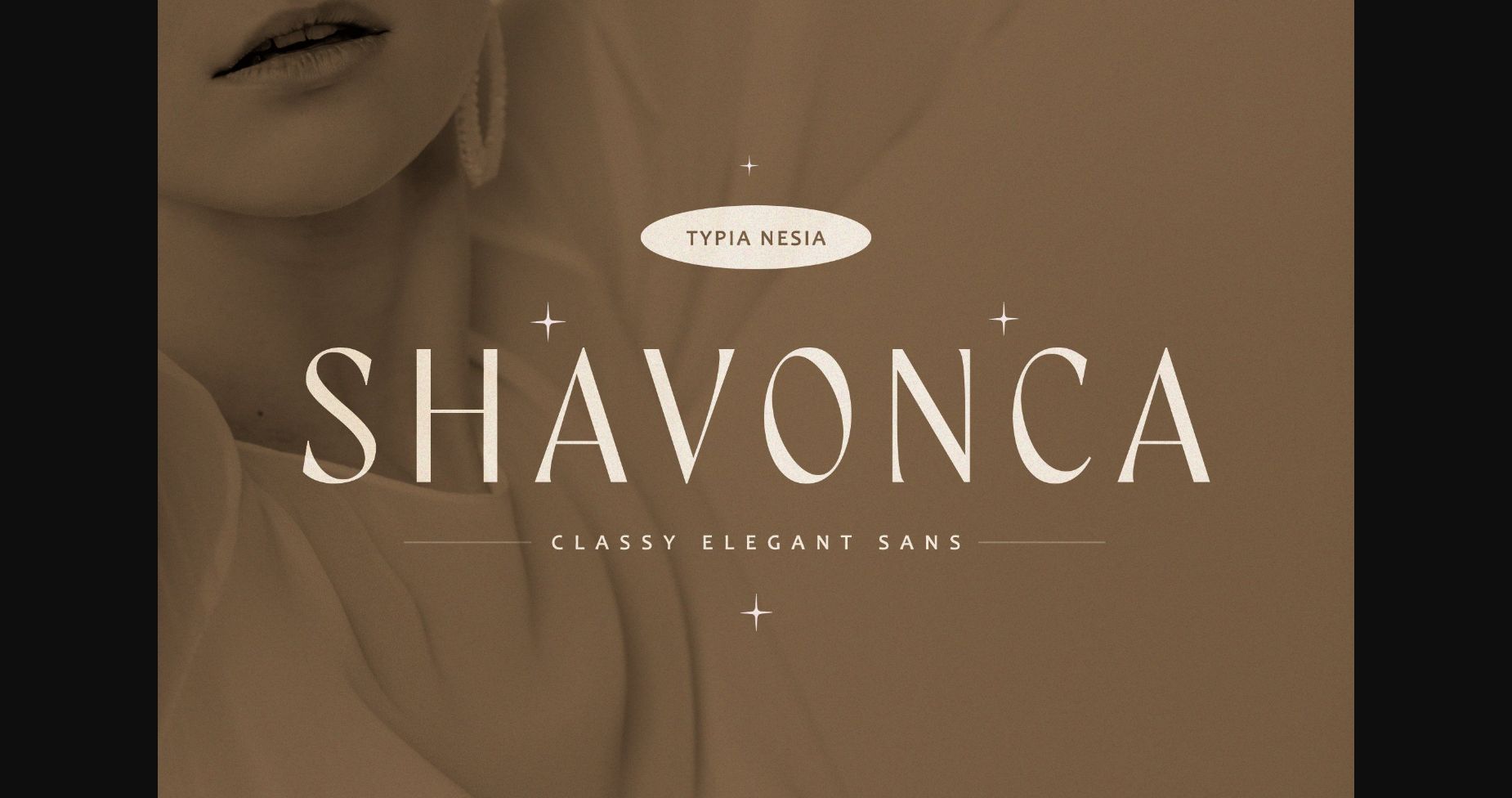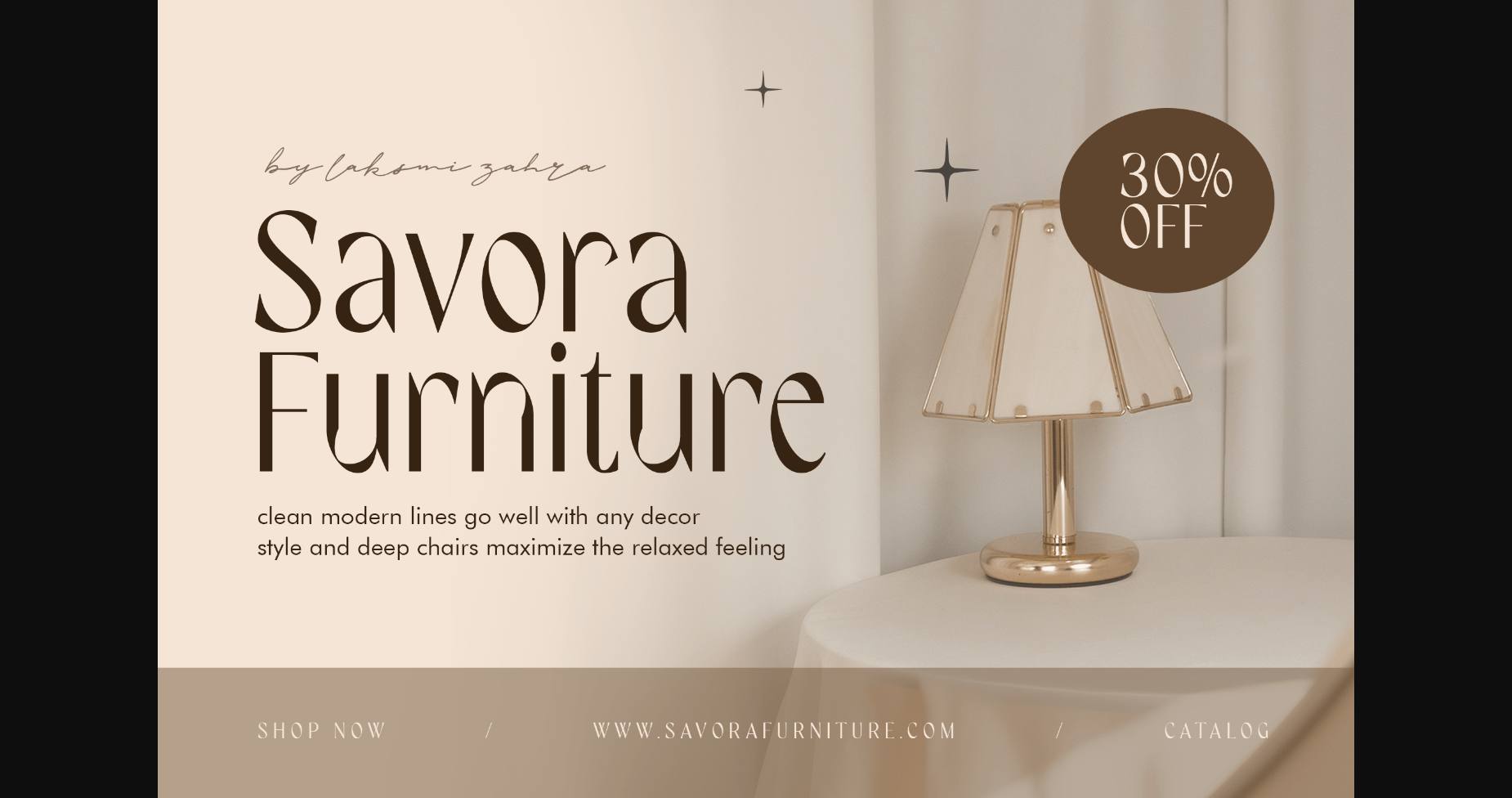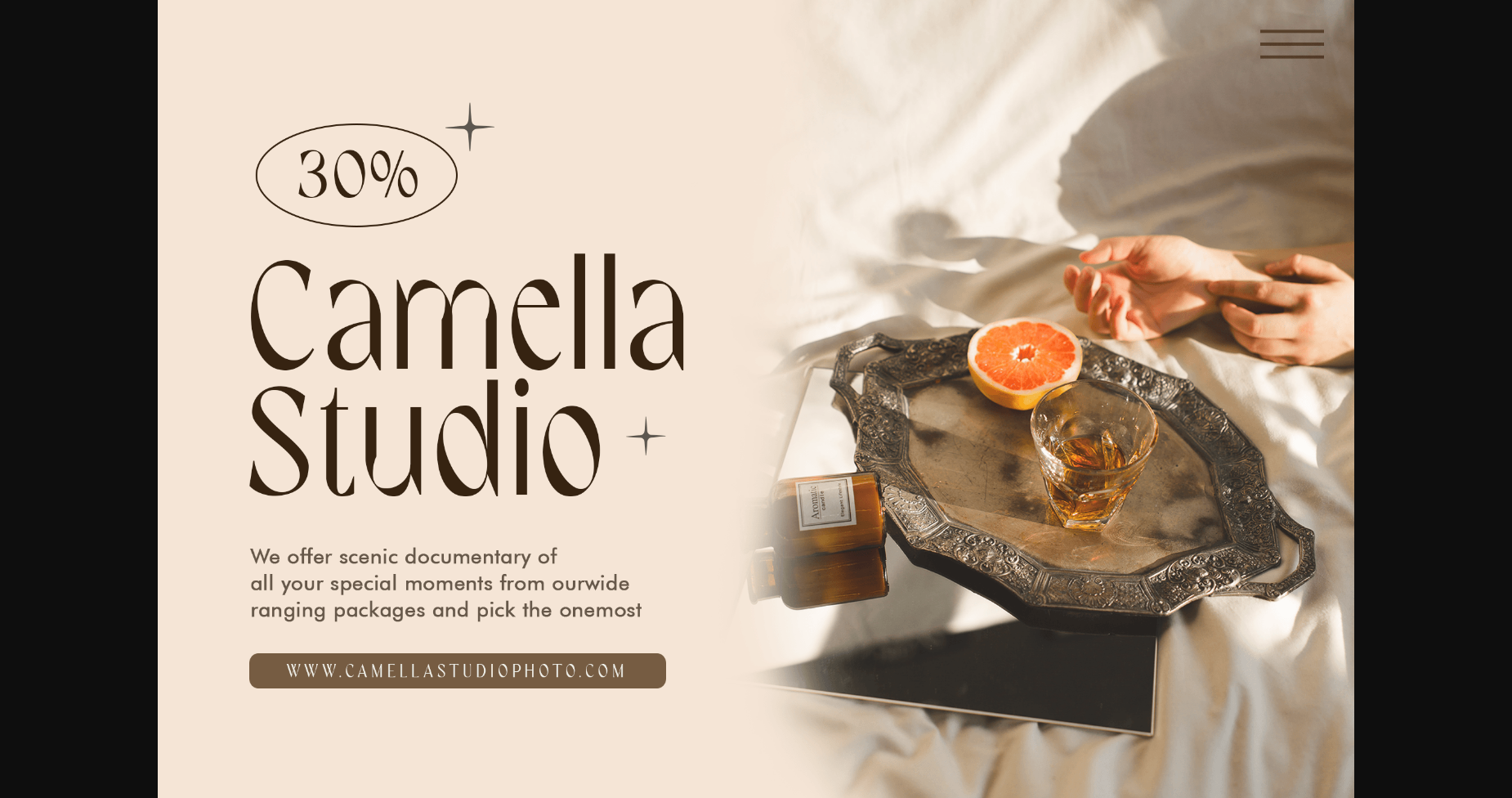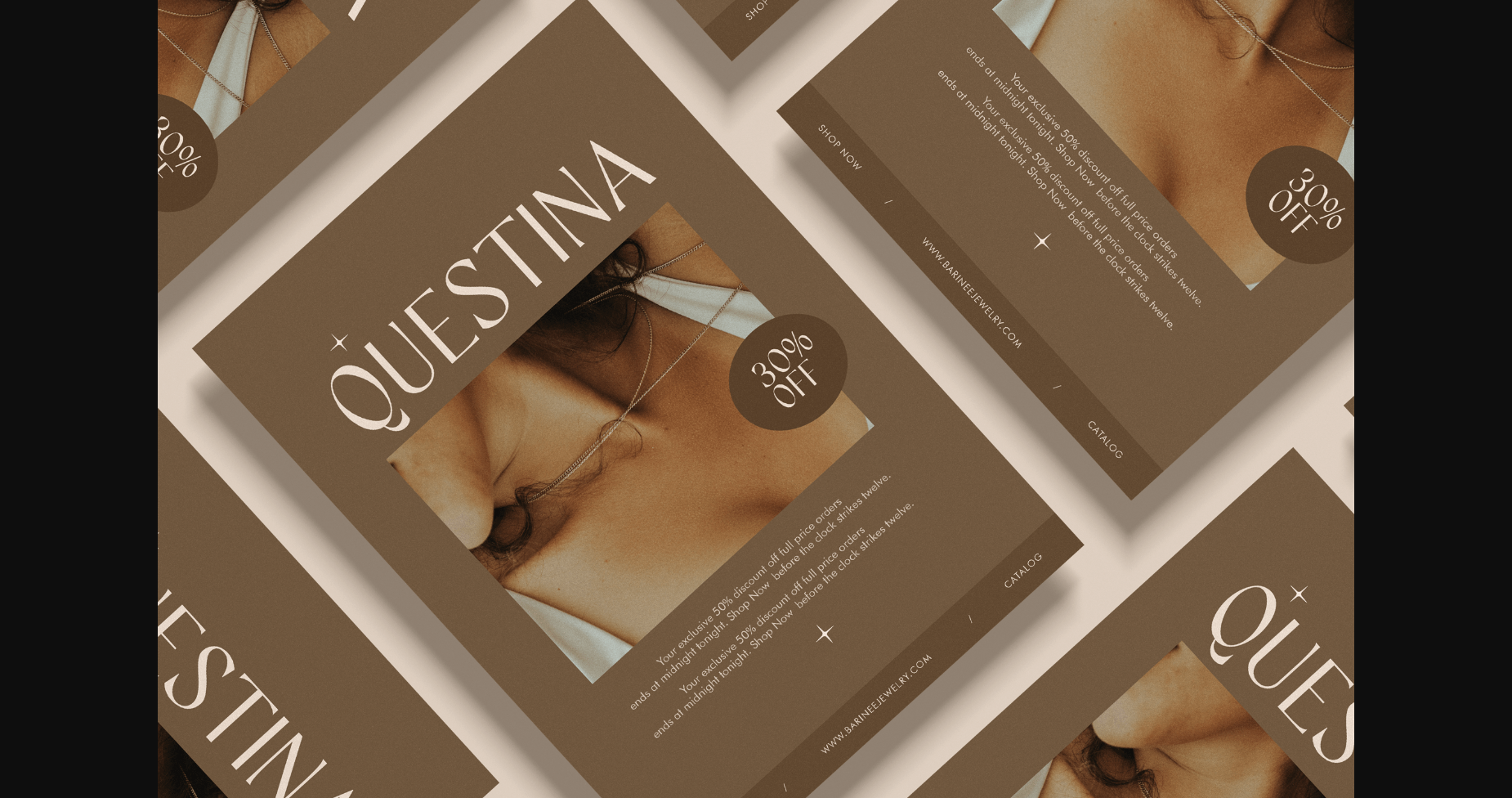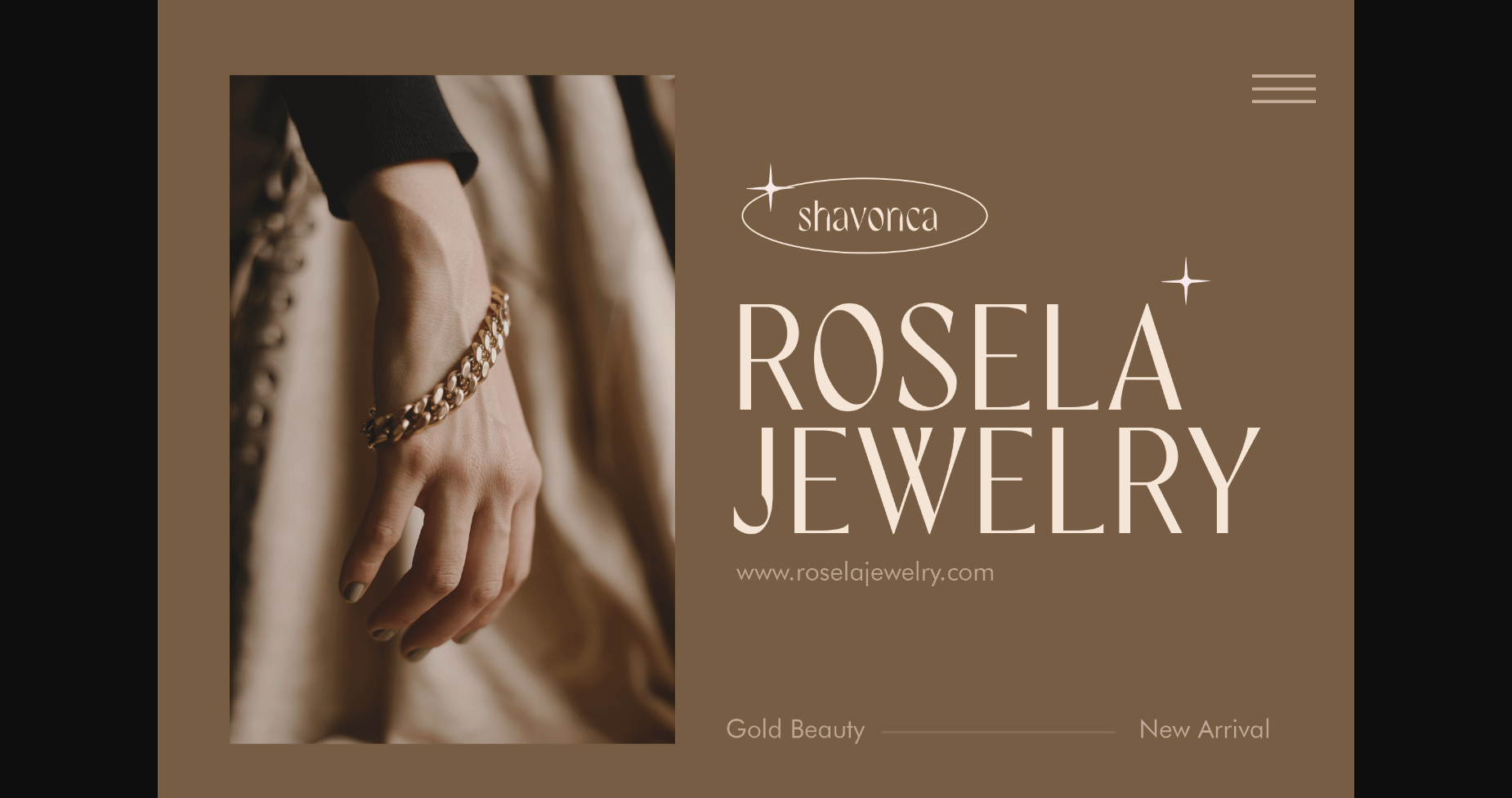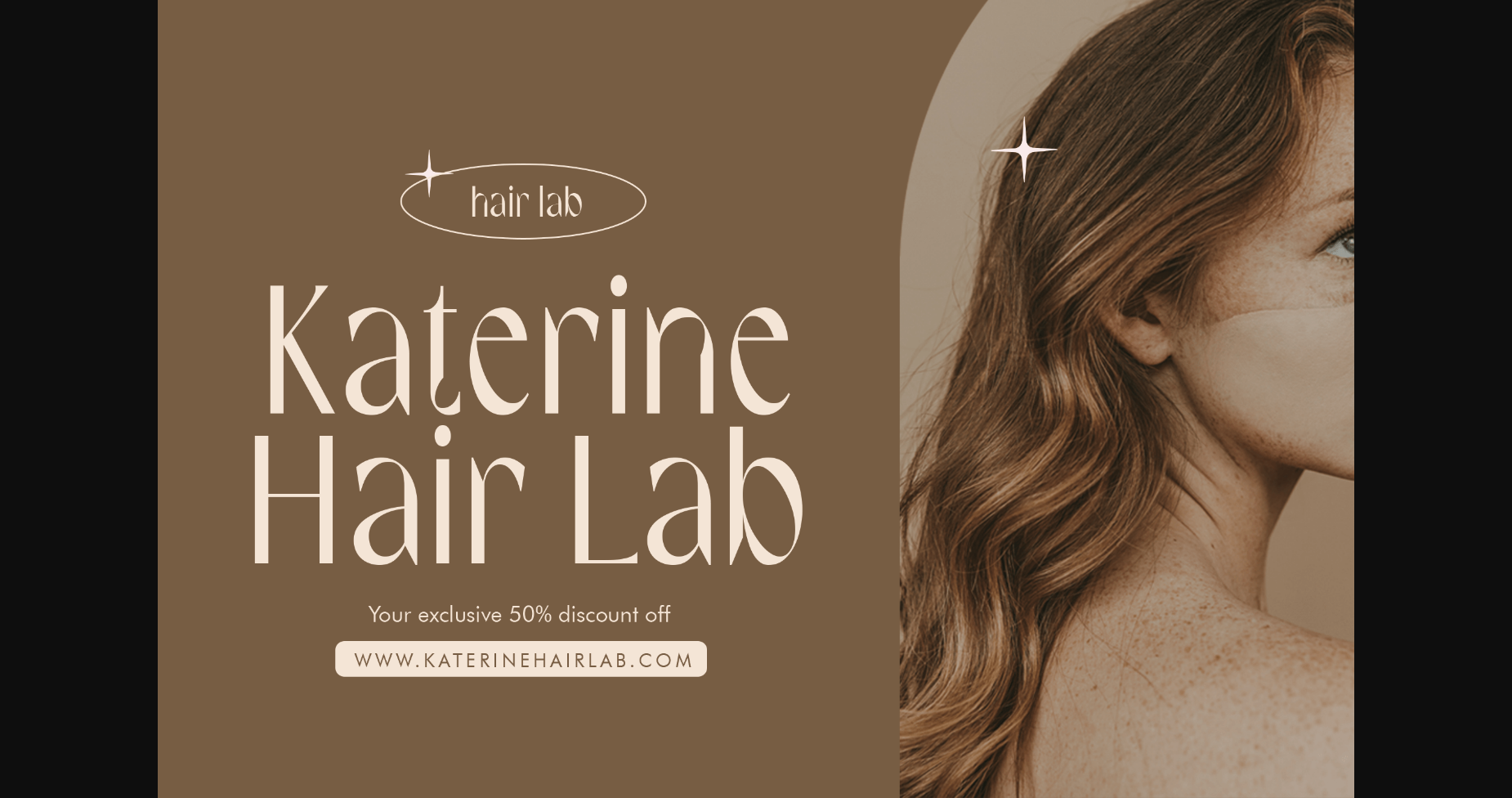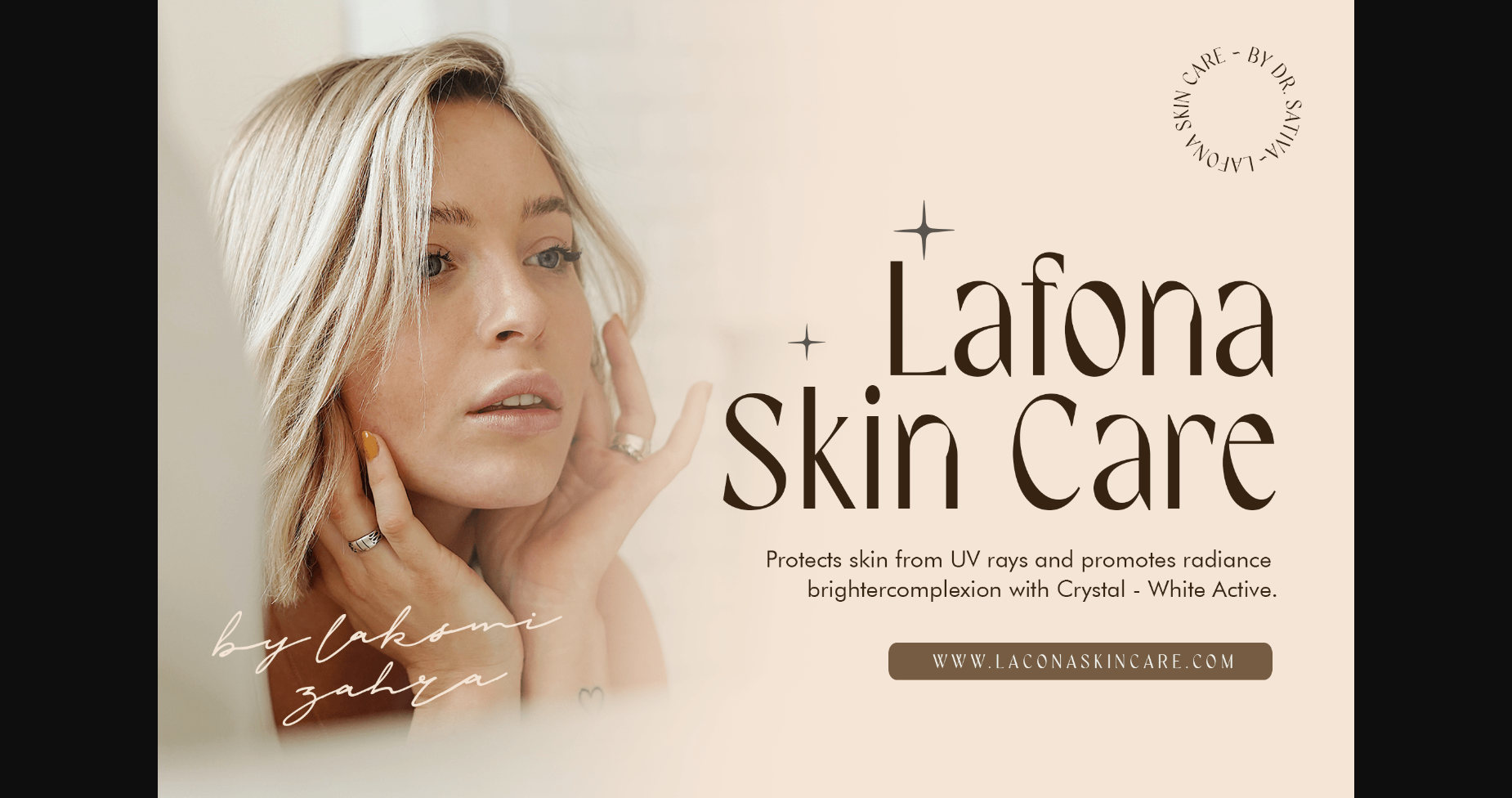
About Shavonca Font
Shavonca – Modern, Classy, Elegant Sans Serif Font
Shavonca comes with some alternates and ligatures, so you can combine them to make a perfect typography design. Suitable for any design needs: logo, branding, modern advertising design, vintage and retro design, holiday and traveling design, fashion and music, animation or movie title, poster quote, book/fantasy novel cover title, editorial design, website/blog, card, and more.